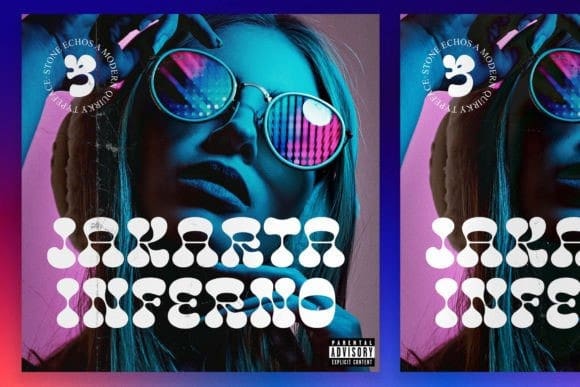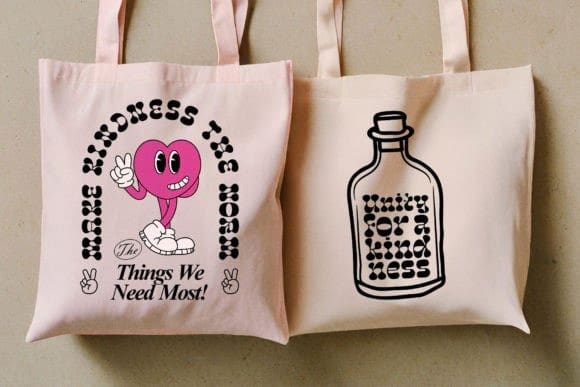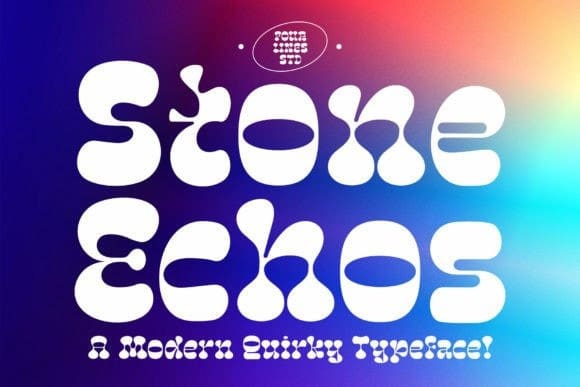
Stone Echos Font
Stone Echos Font, your new go-to font for all modern and bold projects. Its unique, round bubbles infuse a touch of modernity and style into your designs, striking the perfect harmony between whimsy and elegance. Use Stone Echoes to craft an eye-catching logo or a dynamic poster – its distinctive yet refined characters serve as a vibrant catalyst for your inventive concepts.